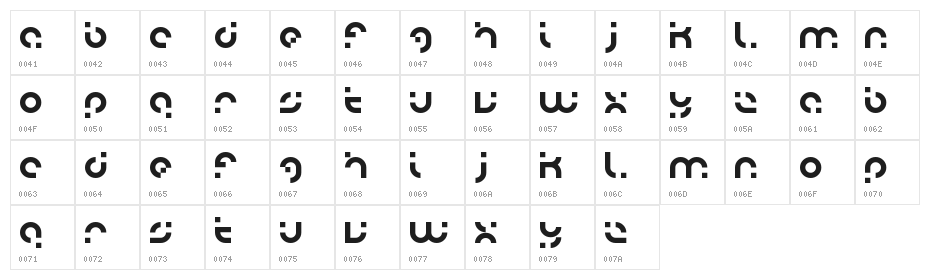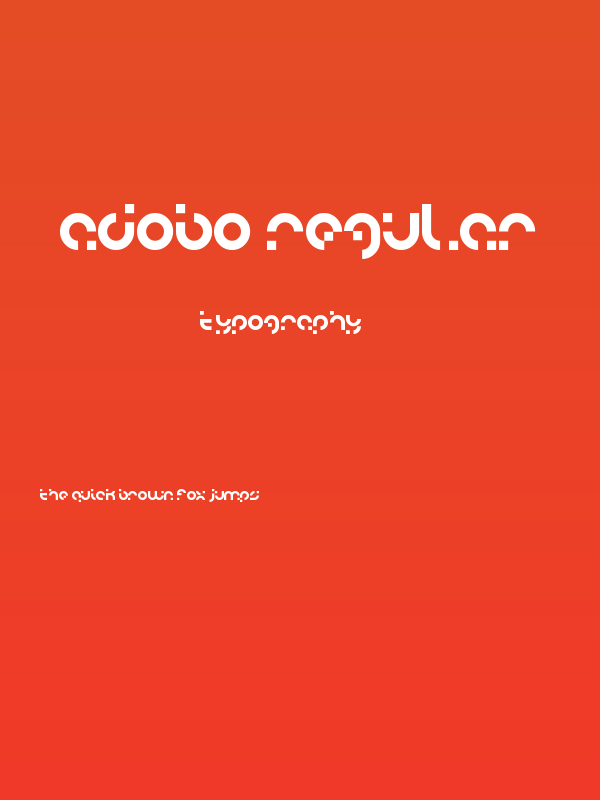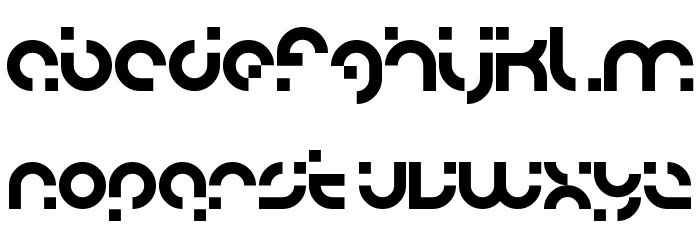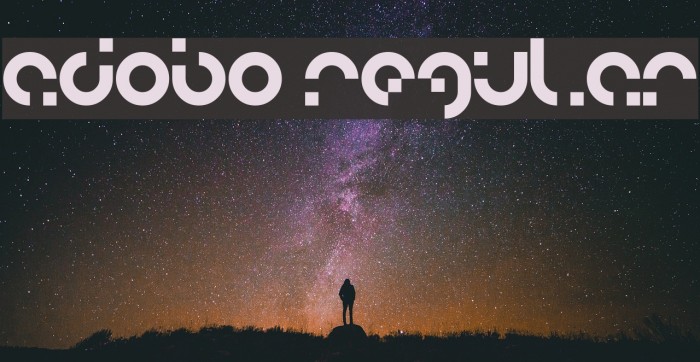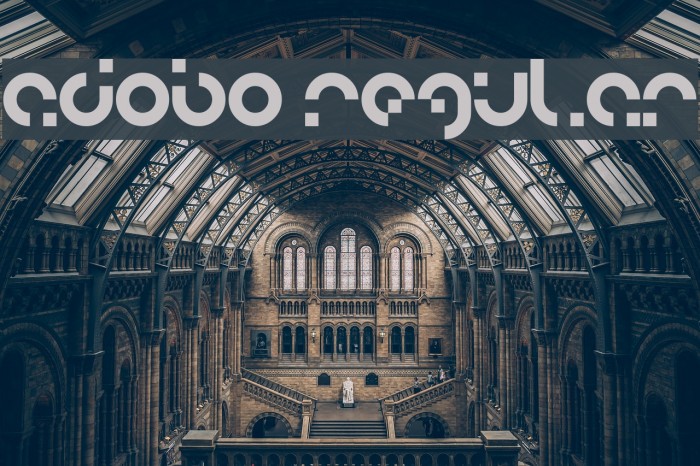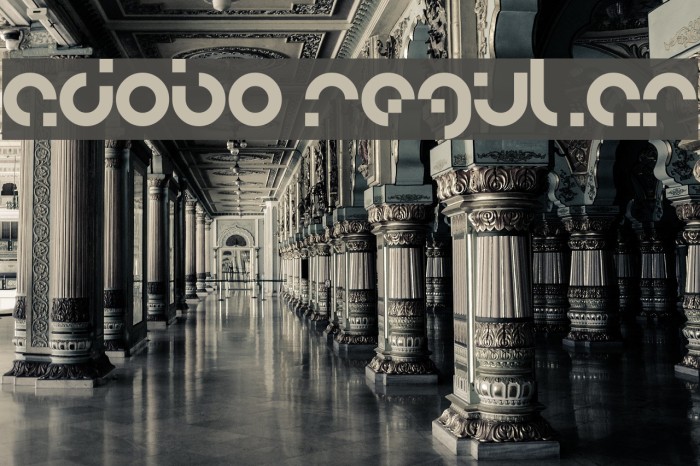
adobo Regular Font
adobo Regular Description
This font features a unique and modern design with a geometric and futuristic aesthetic. The characters are composed of bold, rounded shapes with consistent stroke thickness, giving it a cohesive and structured appearance. The use of negative space within the letters adds an intriguing visual element, making it stand out in any design. The font maintains a uniform width across all characters, contributing to its balanced and harmonious look. Its distinct style is suitable for creative and contemporary projects, where a bold statement is desired.
| Use Case | Logos, Headlines, Posters |
| Proposed Projects | Ideal for branding, logos, posters, and digital media where a modern and futuristic look is desired. |